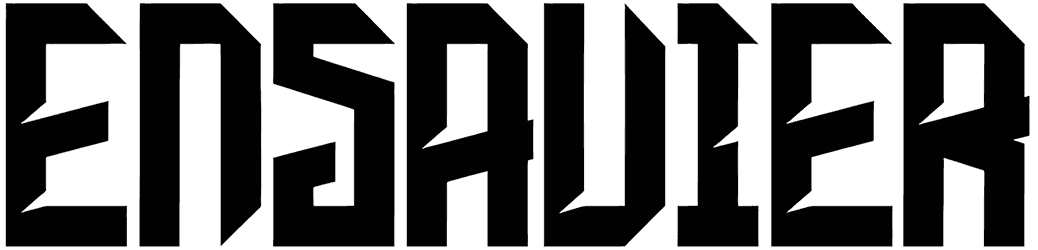
Ensavier Font
If you are in the mood for adding a sense of momentum, futuristic, vivacity, or uniqueness to all of your graphic content, we have a special offer, such as Ensavier, for you.
This Esports font can help you fulfill your ambitions and make your video game posters, social media posts, movie brochures, logos, or billboards look shining alongside all of their counterparts. Just in case you require another square font like this one, the RB archive is available.